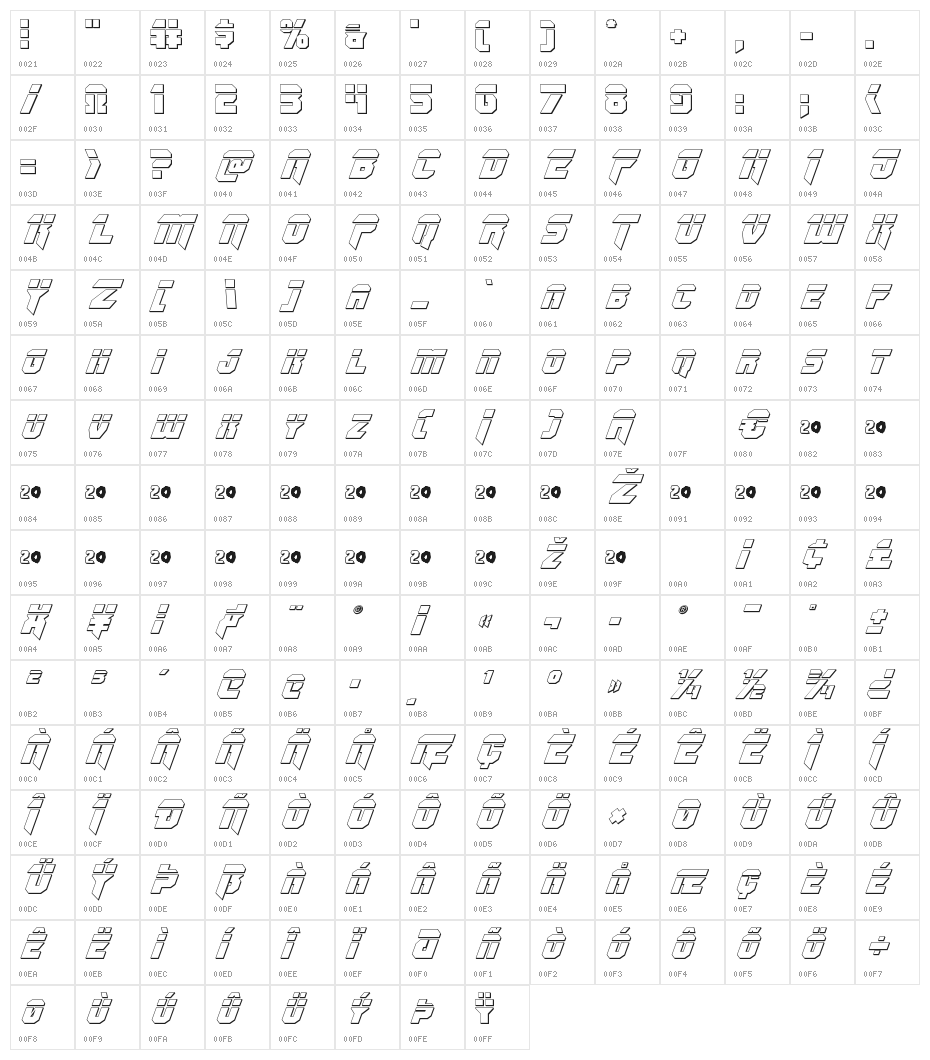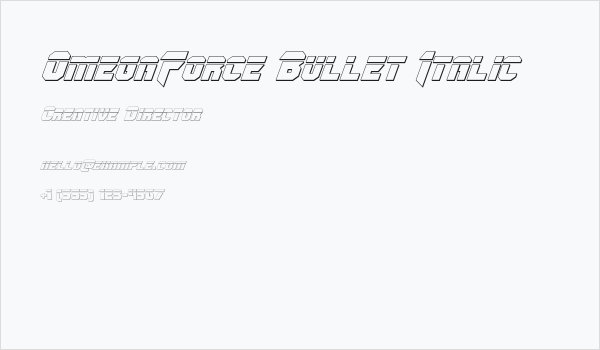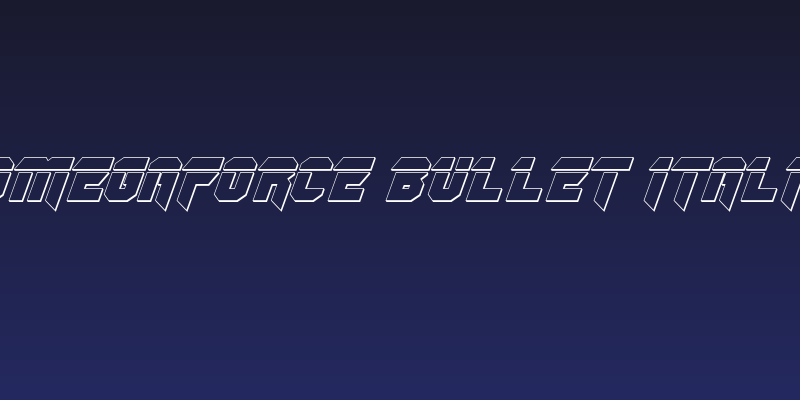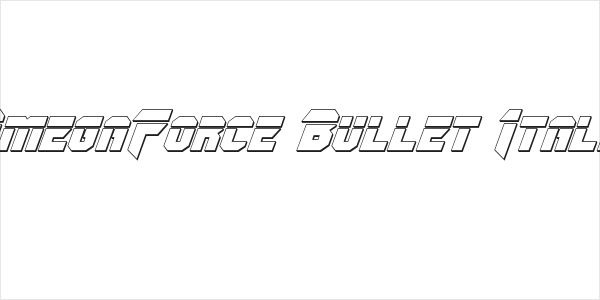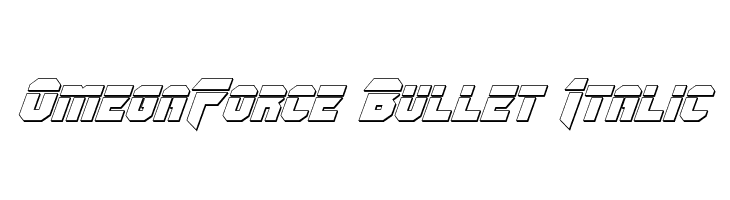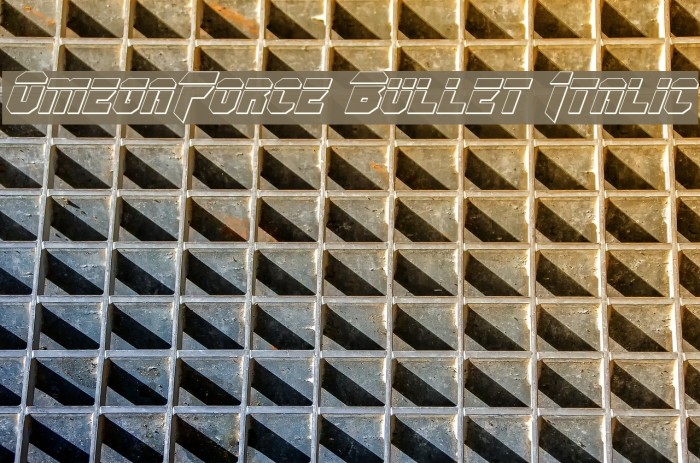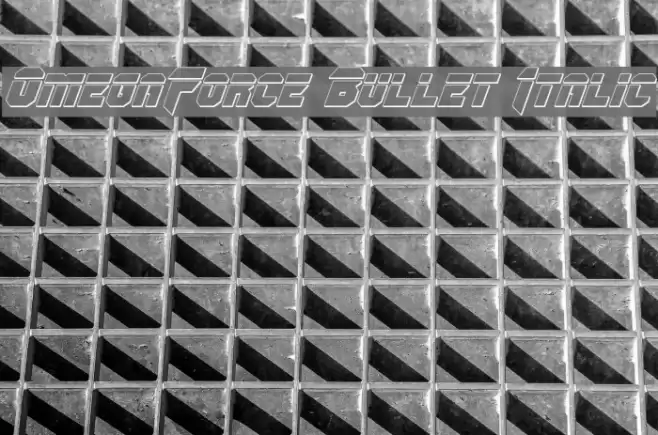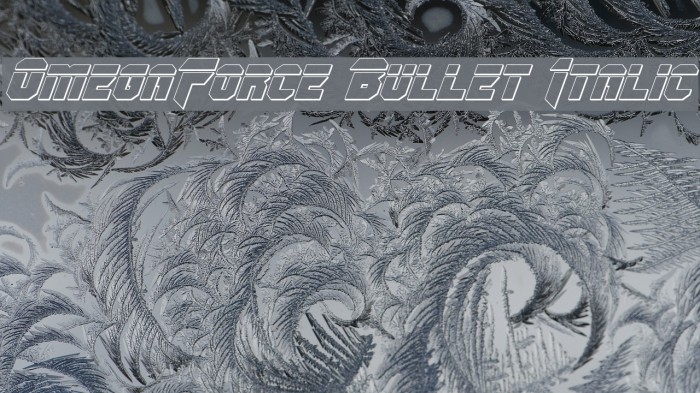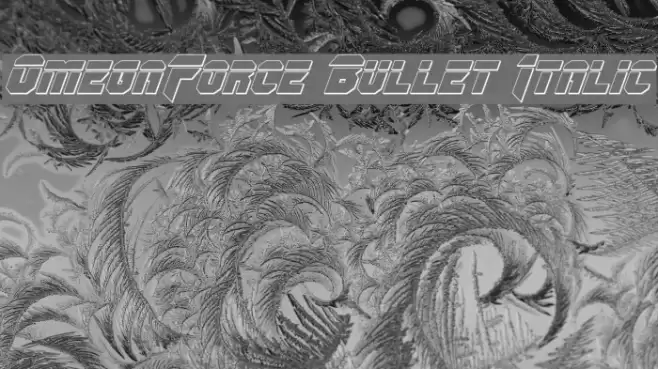
OmegaForce Bullet Italic Font
OmegaForce Bullet Italic Description
This font features a bold, angular design with a futuristic and dynamic appearance. The characters are outlined, giving them a three-dimensional effect that enhances their visual impact. The style is reminiscent of science fiction and technology themes, with sharp edges and a geometric structure. The italic slant adds a sense of motion and speed, making it ideal for projects that require a modern and energetic look. The uppercase and lowercase letters maintain a consistent style, while the numerals and special characters complement the overall aesthetic. This font is well-suited for use in digital media, gaming, and branding projects that aim to convey a sense of innovation and forward-thinking.
Fonts by Daniel Zadorozny - www.iconian.com
| Overall Style | Futuristic, Dynamic |
| Use Case | Headlines, Logos, Digital Media |
| Proposed Projects | Ideal for digital media, gaming titles, technology branding, and sci-fi themed projects. |